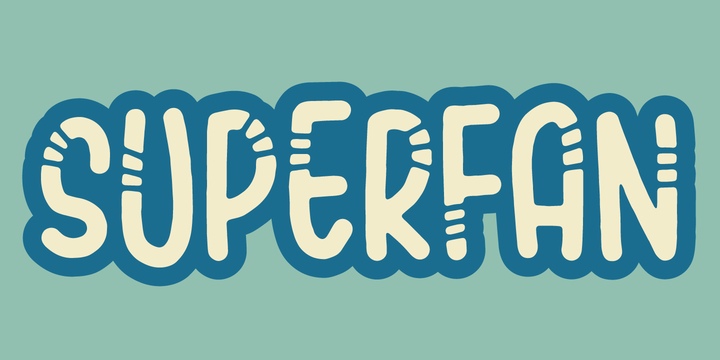
Superfan Font
Superfan Font is ideal for sports team branding, fan merchandise designs, stadium signage, athletic event graphics, team spirit posters, sports bar logos, championship banners, and enthusiastic supporter communications.
This exciting Superfan Font energizes audiences with its bold, spirited letterforms that capture the passionate intensity and unwavering loyalty of dedicated sports fans. The font's dynamic character and enthusiastic energy make it an exceptional choice for projects requiring team spirit, competitive excitement, and fan culture authenticity that resonates with passionate supporters and athletic communities.
The Superfan Font family includes multiple energetic variations such as Regular, Bold, Condensed, Extended, Shadow, and Championship versions, providing designers with comprehensive options for creating spirited brand communications and enthusiastic typographic compositions with authentic fan culture appeal.
Celebrate fan passion with Superfan Font Free Download - a powerfully crafted typeface that embodies the electric energy of sports fandom and team loyalty. This versatile font combines competitive spirit with contemporary functionality, making it perfect for brands and projects that need to communicate enthusiasm, team pride, and authentic sports culture engagement.
The spirited character of Superfan Font makes it particularly effective for sports organizations, fan clubs, athletic merchandise companies, and entertainment venues that need to convey excitement, team loyalty, and competitive energy. Its bold styling appeals to audiences who appreciate sports culture, team dedication, and passionate fan experiences.
Sports marketing professionals choose Superfan Font for its authentic fan atmosphere and exceptional visual impact across various athletic applications. The font maintains its energetic character from small team merchandise to large stadium displays, ensuring consistent brand enthusiasm and competitive appeal throughout all sports-related communications.
The distinctive personality of Superfan Font creates immediate emotional connections through powerful associations with team loyalty, competitive spirit, and fan community culture. This makes it invaluable for brands seeking to leverage sports enthusiasm and fan passion for marketing campaigns and athletically focused brand positioning.
Sports-focused brands utilize Superfan Font to establish authentic identities that communicate team spirit, competitive excellence, and fan culture authenticity in competitive sports markets. The typeface's enthusiastic appeal helps organizations differentiate themselves while attracting passionate supporters who value team loyalty, athletic achievement, and authentic sports experiences in their lifestyle choices.